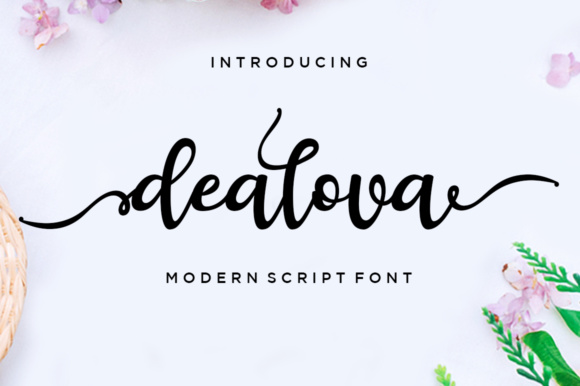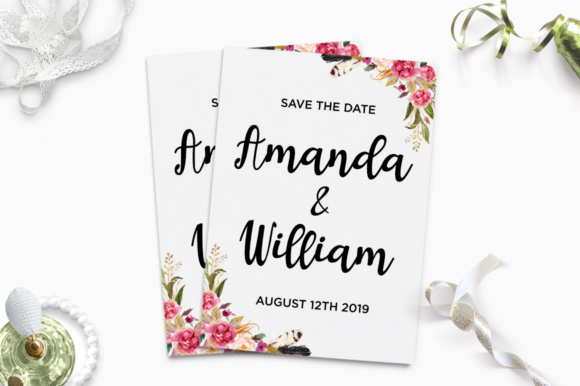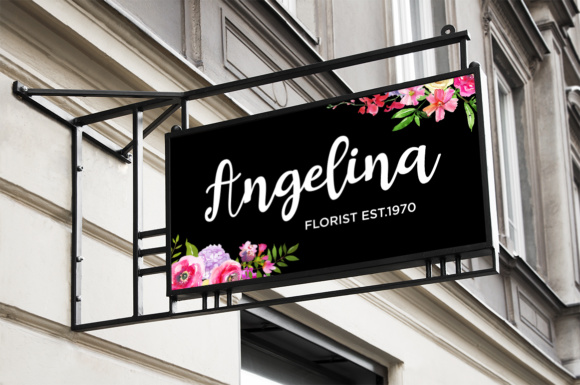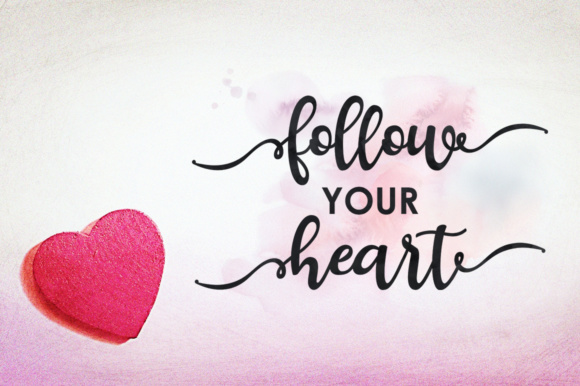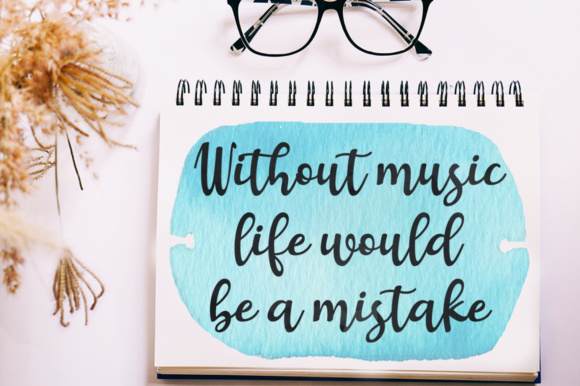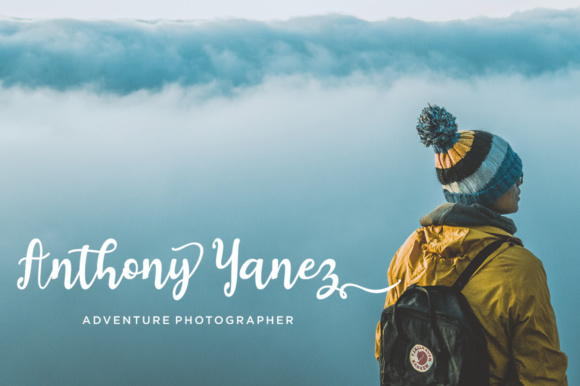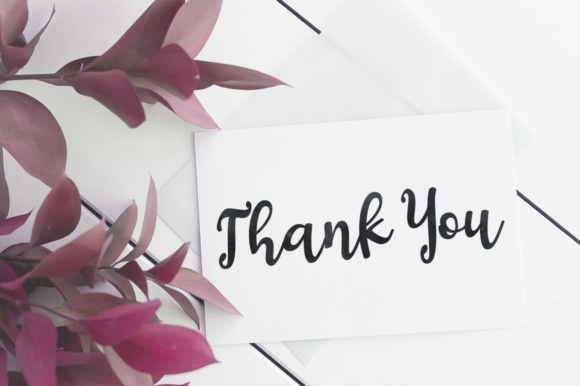
Dealova Script Font
About Dealova Script Font
Dealova script is a beautiful, legible script font, ideal for a wide range of projects. Dealova is a great way to add a vintage, yet clean style to your work.